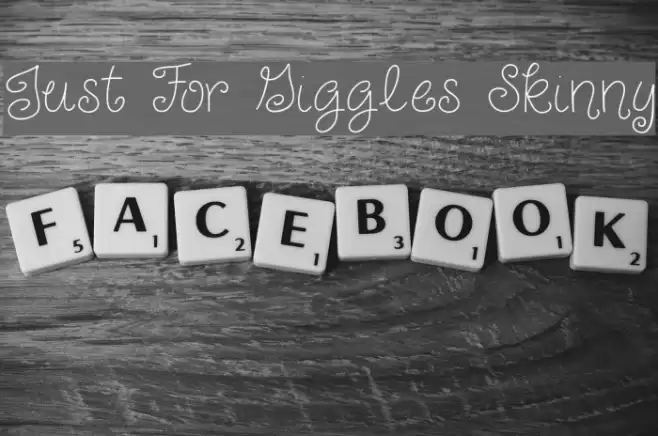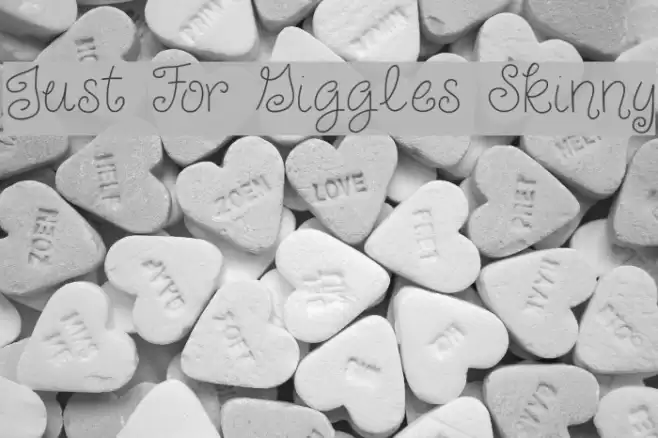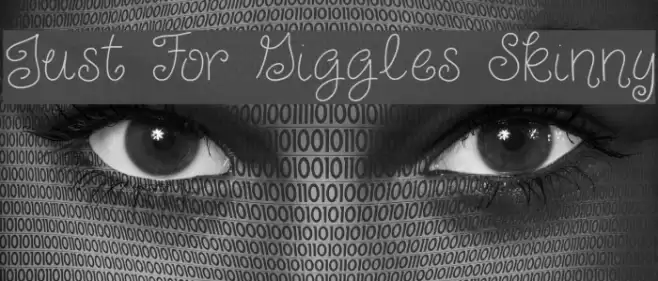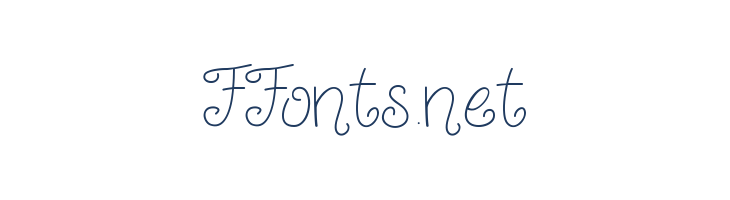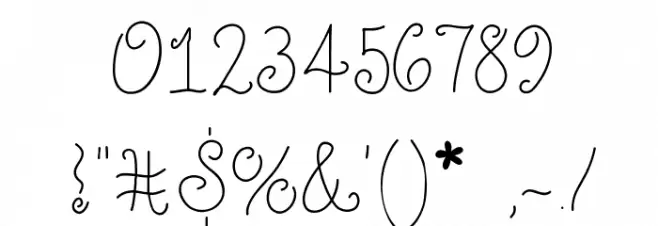
Just For Giggles Skinny Font
Just For Giggles Skinny Description
This font features a whimsical and playful design, characterized by its curly and flowing lines. Each letter has a unique, hand-drawn quality, giving it a lively and informal appearance. The uppercase letters are tall and slender with exaggerated loops and curves, while the lowercase letters maintain a consistent style with slightly less ornamentation. The numbers and special characters follow the same playful theme, ensuring a cohesive look across all elements. This font is perfect for projects that require a touch of fun and creativity, such as children's books, greeting cards, or playful branding.
A whimsical, curly font with a playful, hand-drawn style from Uncategorized fonts.
- Proposed Projects: Ideal for children's books, greeting cards, playful branding, and creative projects.